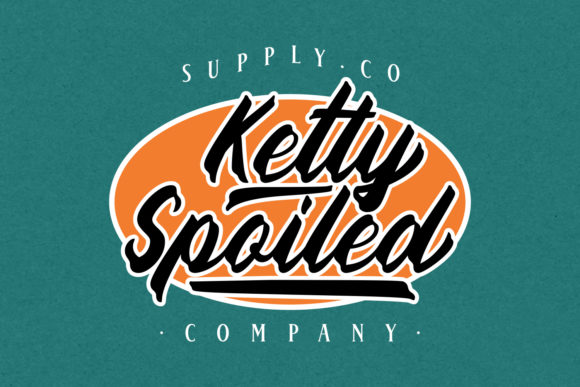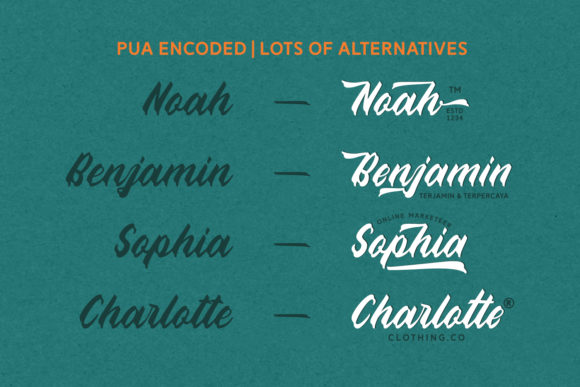
Western Culture Font
db-ku.com - Script & Handwritten -- The Western Culture is a unique font. It has a bold and striking look which can be used to make any design stand out! It includes amazing charters in several styles that can be used to create unique designs, every time you use it.